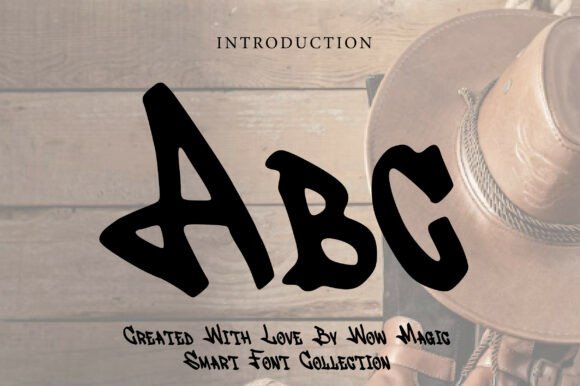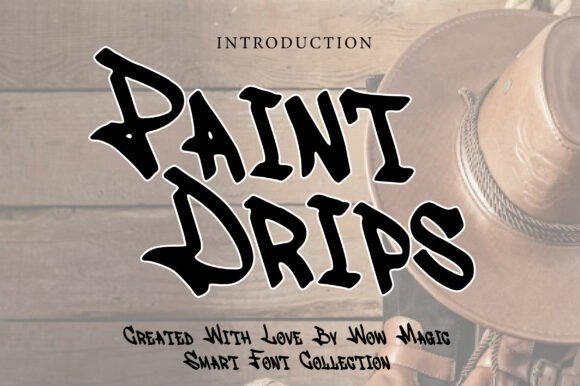
Introduction to Paint Drips Font
Paint Drips is a wild and expressive display font inspired by street graffiti, dripping paint, and rebellious urban art.
The irregular forms and splattered, drip-inspired details give it an authentic underground feel, making it perfect for posters, album covers, streetwear branding, skate graphics, event flyers, horror-themed designs, and edgy headline projects Paint Drips captures the spirit of vandal art and creative chaos while remaining highly impactful and readable.